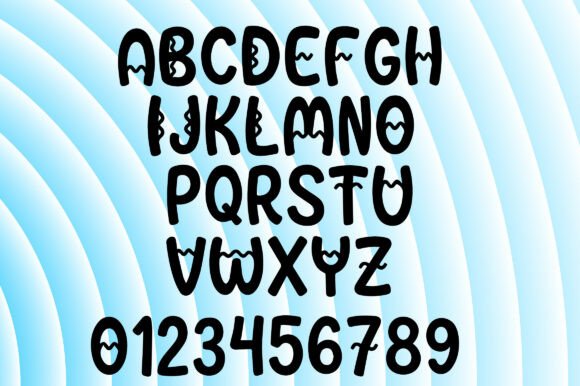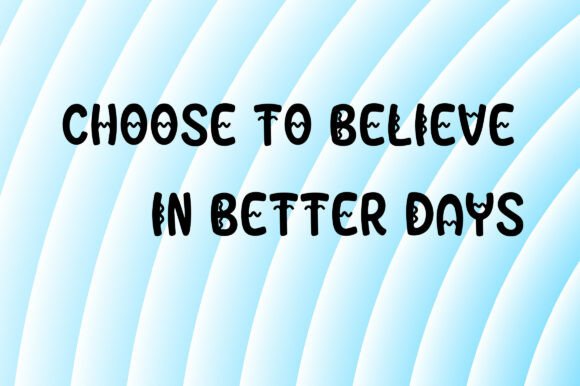
Introduction to Live Light Font
Have you ever stumbled upon a design that sparks joy and makes you feel like a kid in a candy store? For designers, finding the right font can be the magic that brings a project to life. I still remember the thrill of discovering a high-quality font that perfectly captures the essence of my creative vision. That’s exactly what Live Light Font does – it’s a playful decorative display font that’s sure to light up your next project.
With its bold rounded shapes and quirky cutout details, Live Light Font is the perfect addition to any design resource. Whether you’re working on a kids’ design, poster, or branding project, this font is sure to bring a smile to your face. Plus, with a transparent background, you can easily overlay it on any image or design element. And the best part? You can download it for free, making it an invaluable resource for designers of all levels.
Key Features of Live Light Font
- High-quality design: Live Light Font is a carefully crafted font designed to meet the needs of creative projects, offering a unique and visually appealing aesthetic.
- Transparent background: Live Light Font features a transparent background, allowing for seamless integration with various design elements and backgrounds.
- Unique characteristics: Live Light Font features a distinctive, hand-drawn style with subtle texture and imperfections, adding a touch of personality to any creative project.
Honest Review: Live Light Font
I recently had the chance to try out the Live Light Font, and I must say it’s been a game-changer for my creative projects. This high-quality font is available for free download, which is a definite plus for designers on a budget.
What I love about the Live Light Font is its versatility. It has a transparent background, which makes it super easy to customize and layer over other design elements. The font itself is modern and sleek, with a delicate touch that adds a touch of elegance to any design.
Here are some of the things that work well about the Live Light Font:
- ✨ High-quality design that looks great in print and digital formats
- ✨ Transparent background makes it easy to customize and layer
- ✨ Modern and sleek design that adds a touch of elegance to any project
While the Live Light Font is a great resource, there are a few limitations to keep in mind:
- ⚠️ Limited character set, which may not be suitable for longer text-based projects
- ⚠️ Not suitable for use in very small sizes, as it can become difficult to read
Overall, I’m really impressed with the Live Light Font. It’s a great design resource that’s perfect for creative projects, and the fact that it’s free makes it an even more attractive option. I would definitely recommend giving it a try!
Live Light Font
The Live Light Font is a high-quality, free download font that can be used for a wide range of creative projects. With its transparent background, this font is perfect for designers who want to add a touch of elegance to their designs.
To get the most out of the Live Light Font, experiment with different font sizes, colors, and styles. You can also combine the font with other design elements, such as images and graphics, to create a unique and eye-catching design.
The Live Light Font is commonly used for creating invitations, menus, and other design elements that require a touch of elegance. It’s also perfect for designers who want to add a high-quality, free download font to their design projects.
Can I use the Live Light Font with a transparent background?
Yes, the Live Light Font is designed to work well with transparent backgrounds, making it perfect for creative projects that require a high level of design flexibility. Simply use the font with a transparent layer or background, and you’ll be able to achieve a beautiful, airy effect.